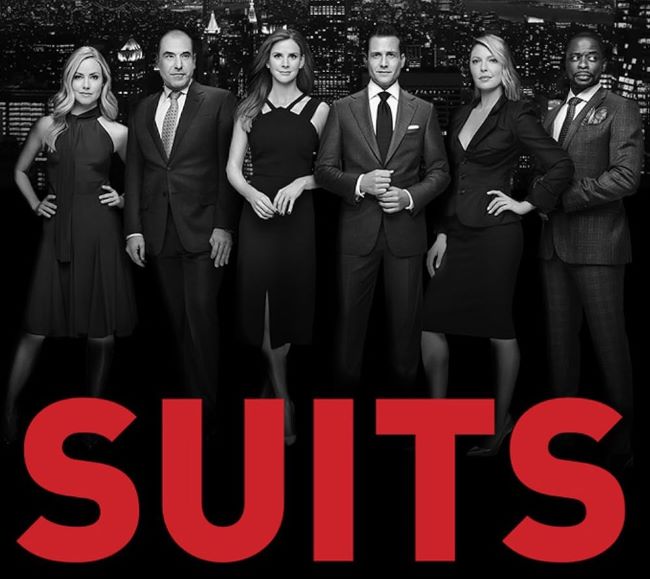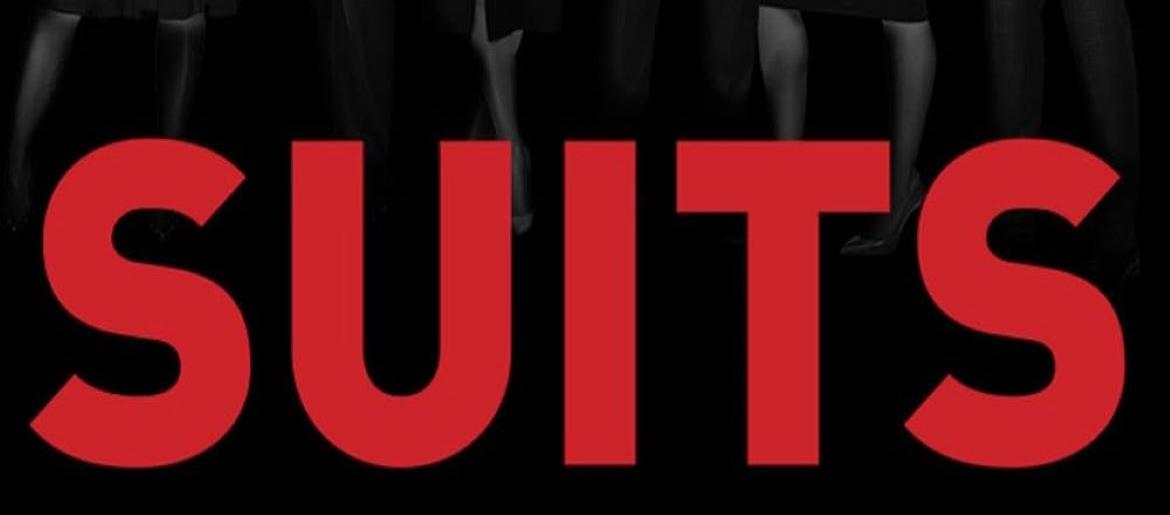
Suits Font
Suits Font perfectly embodies the sleek, confident energy of the hit legal drama Suits. Its sharp, clean letterforms convey sophistication and professionalism, instantly evoking the world of high-stakes Manhattan law firms.
About Suits
Suits aired from 2011 to 2019, following top attorney Harvey Specter and his protégé Mike Ross as they navigate complex legal cases in a high-powered New York law firm. The series is known for its sharp writing, stylish presentation, and dynamic character relationships.